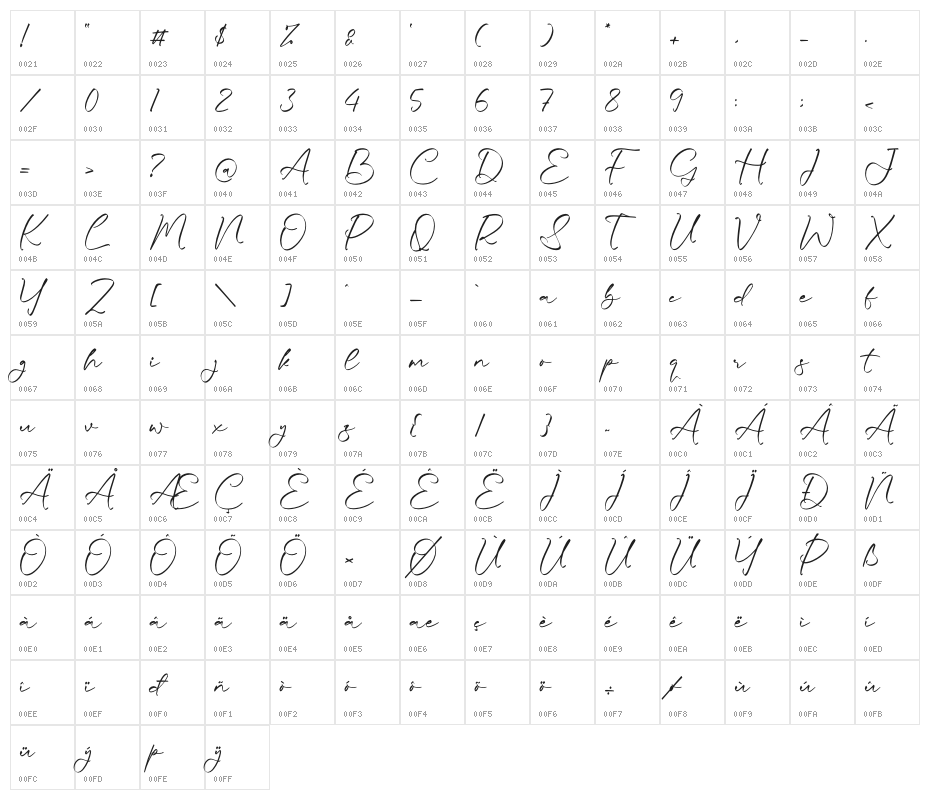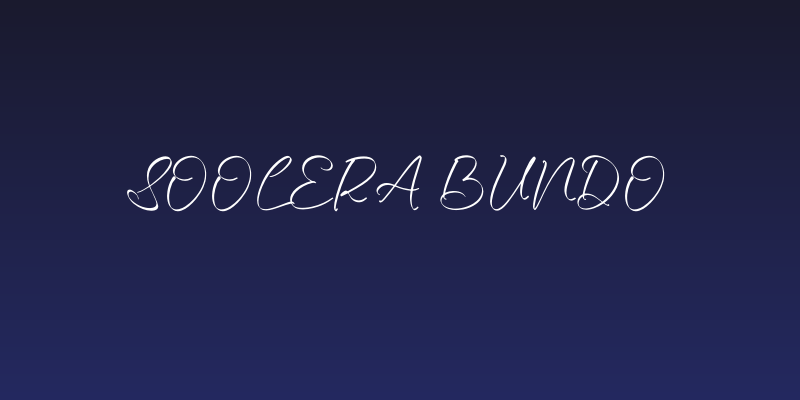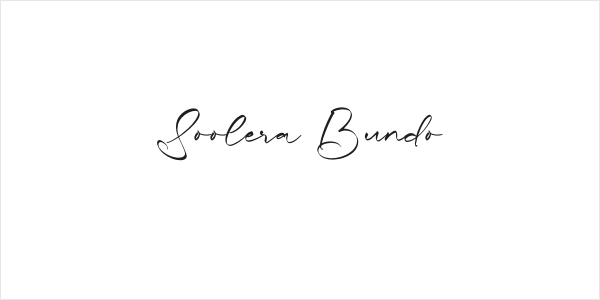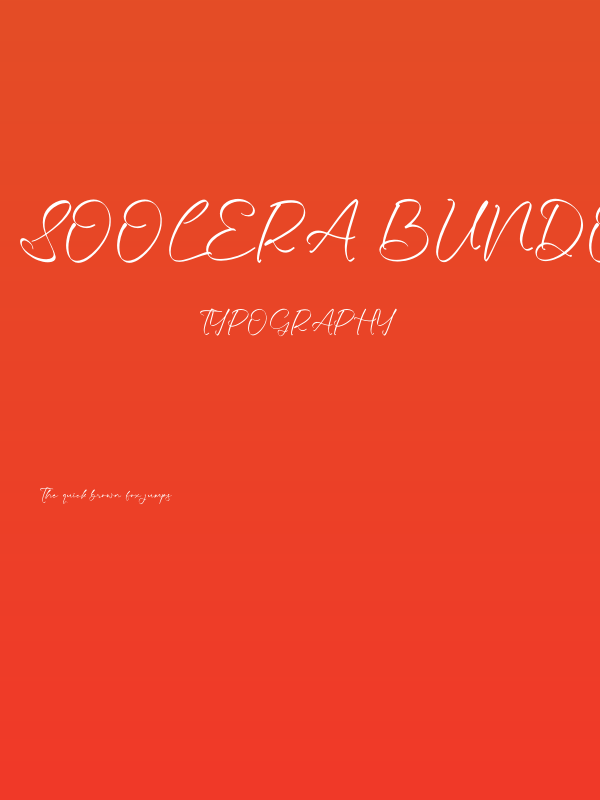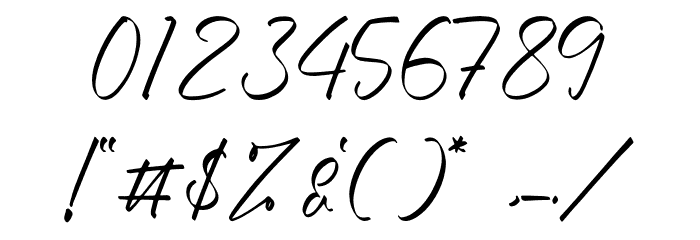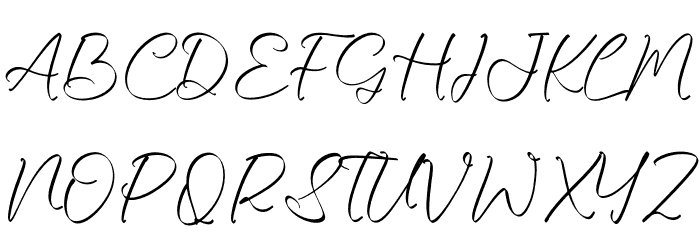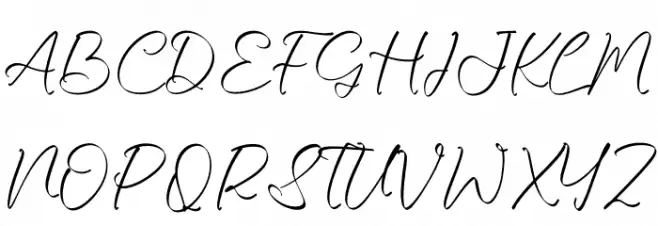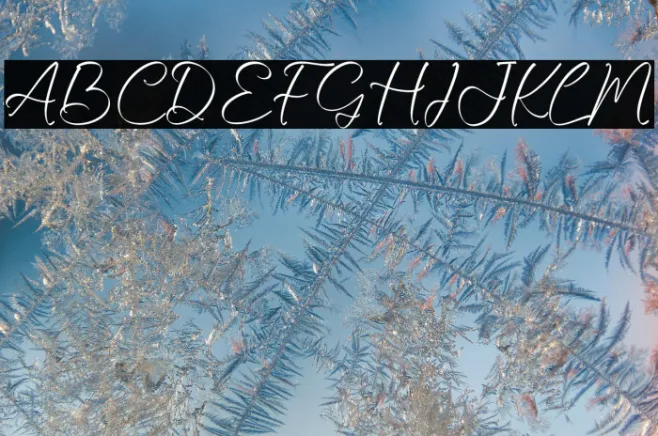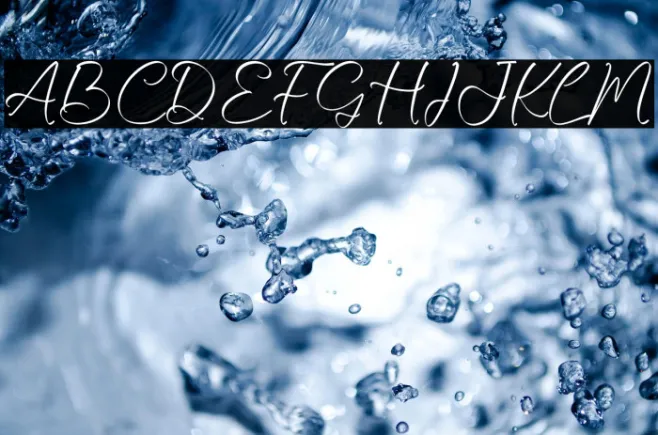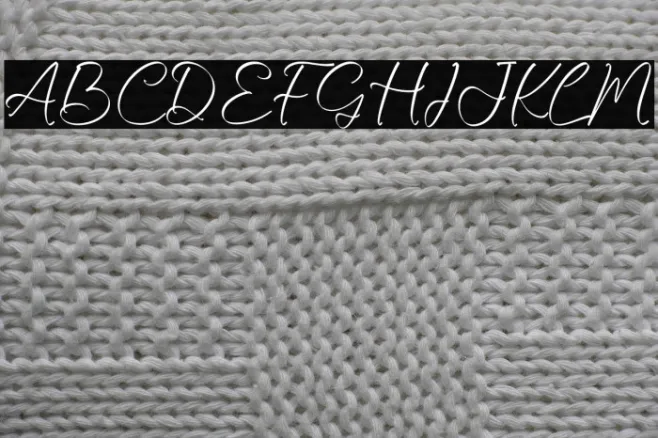
Soolera Bundo Font
Soolera Bundo Description
A flowing, cursive script font with a handwritten style, featuring smooth, connected letters and a casual elegance.
| Use Case | Logos, Invitations, Personal branding |
| Proposed Projects | Invitations, greeting cards, personal branding. |